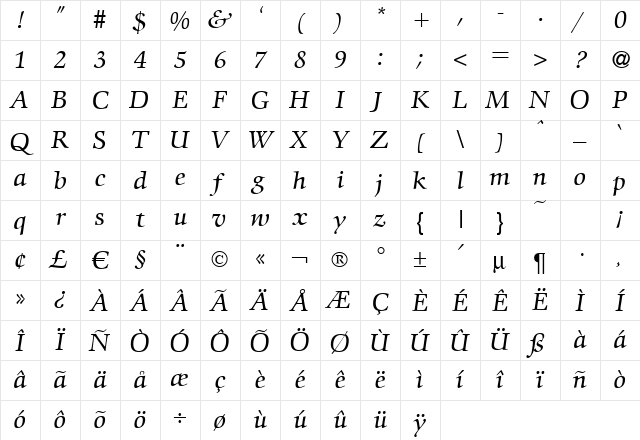
C792-Roman Italic
Design Context for C792-Roman
C792-Roman is a composed and adaptable typeface that performs quietly and consistently across a wide range of design contexts. The slanted form adds forward momentum and visual energy.
Pro Tip: Use C792-Roman for emphasis, pull quotes, and subheadings where its slanted energy can add rhythm to the layout.